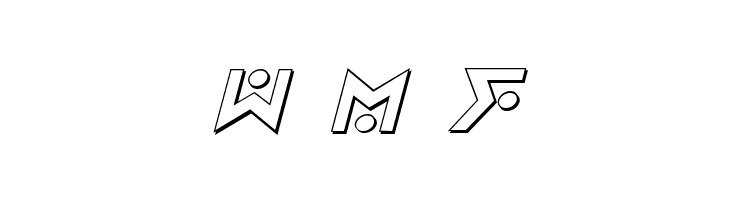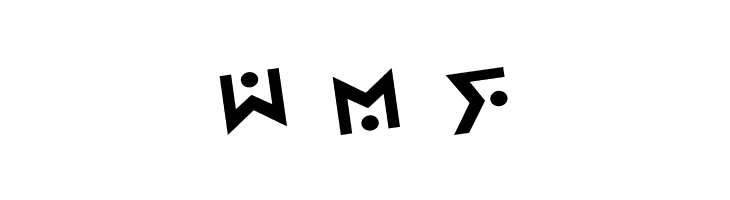
Gaffuk Personal Use Font
- Font: Gaffuk Personal Use
A bold, geometric font with a futuristic and industrial design.
A bold, geometric, and futuristic font with condensed and italicized characters.
A bold, italicized font with a futuristic, angular design and decorative elements.
A bold, futuristic font with sharp angles and geometric shapes, featuring an italic style.
A bold, geometric 3D italic font with angular lines and a futuristic style.
A bold, angular font with a futuristic and geometric style.